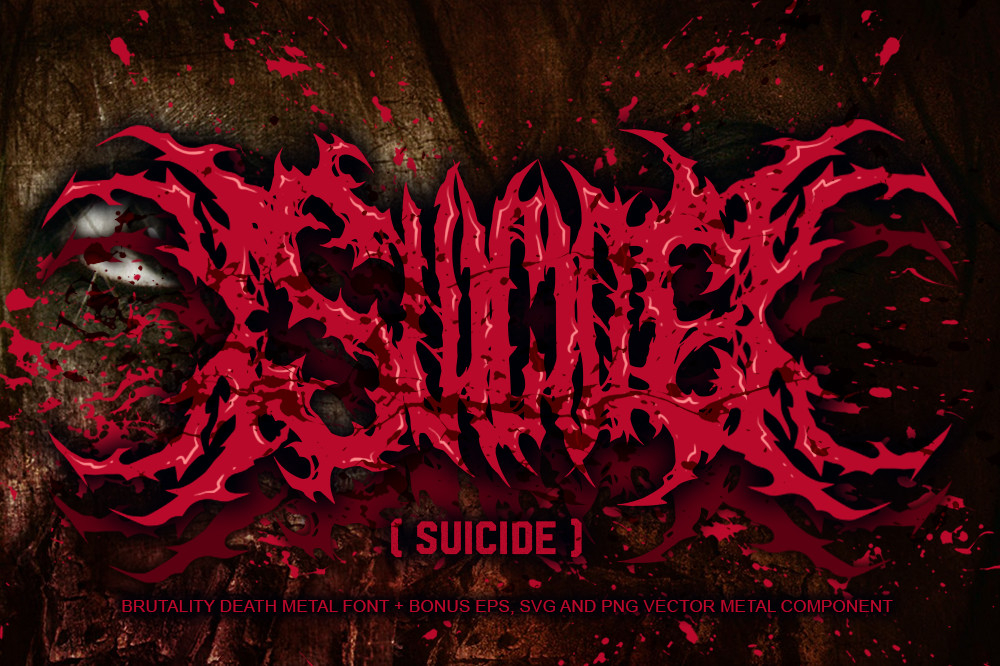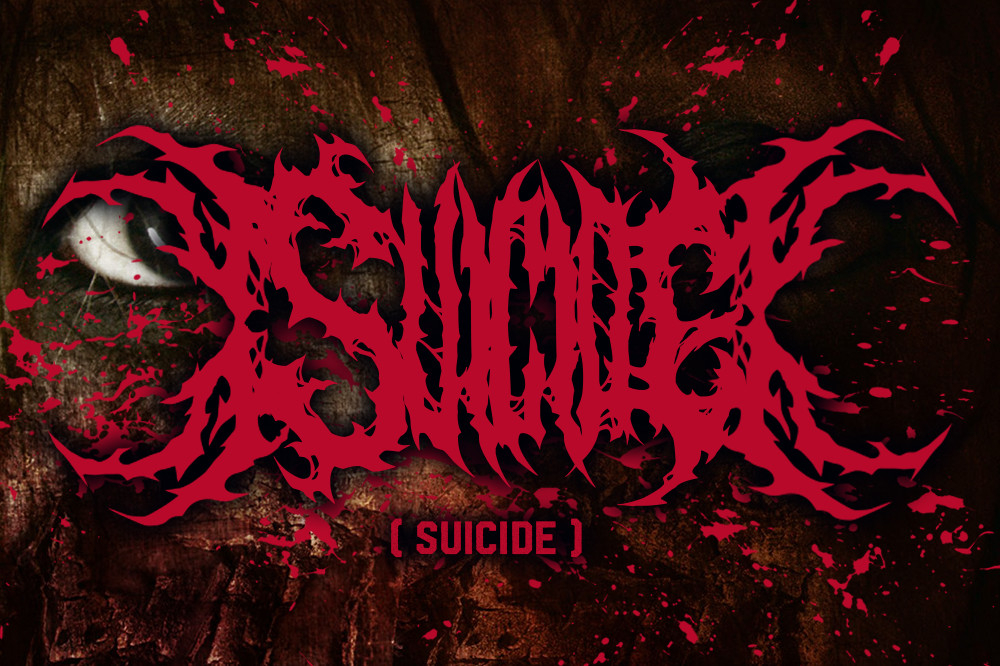
Suicide Font
About Suicide Font
Suicide is a highly detailed and incredibly dramatic blackletter font. This font was particularly crafted for those who need a spooky and aggressive look to their designs.